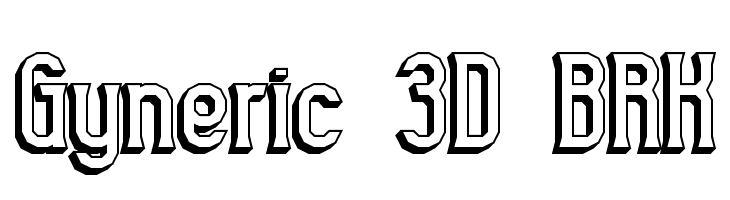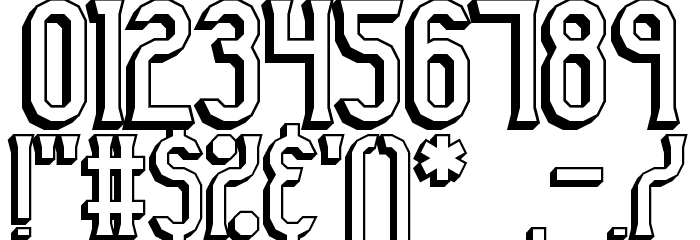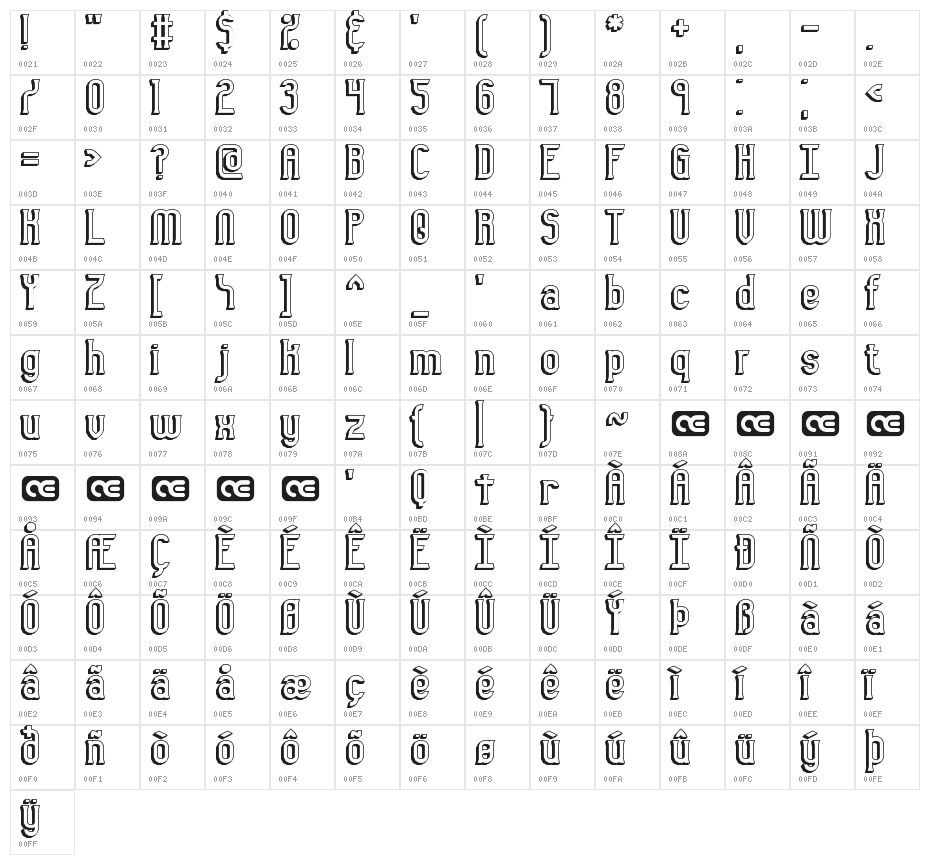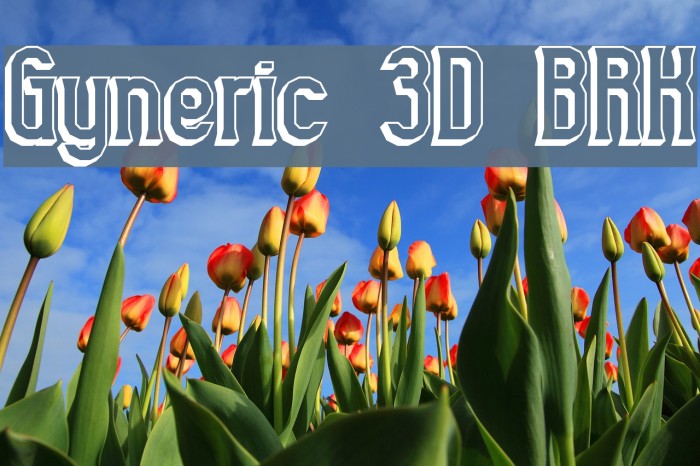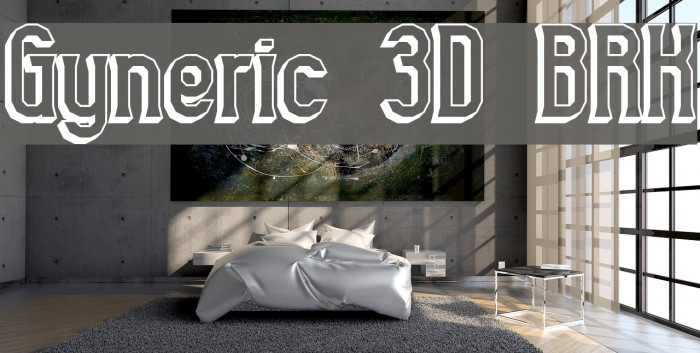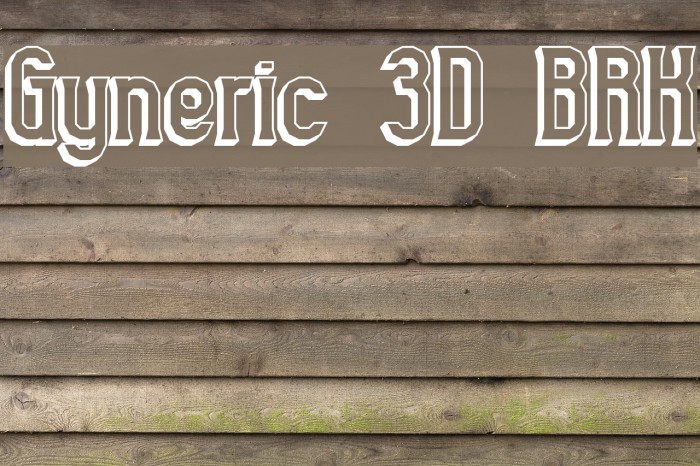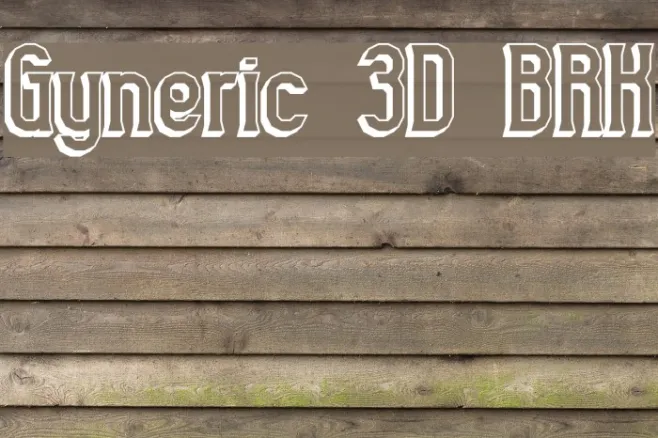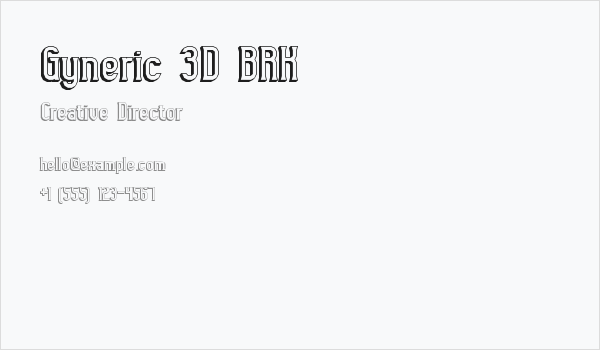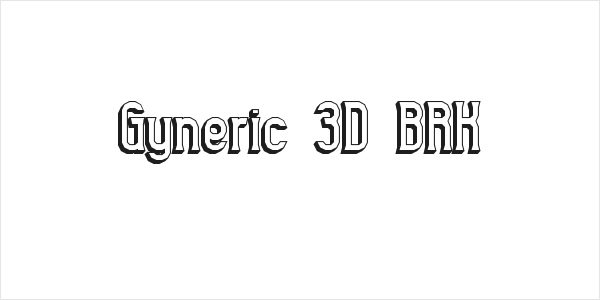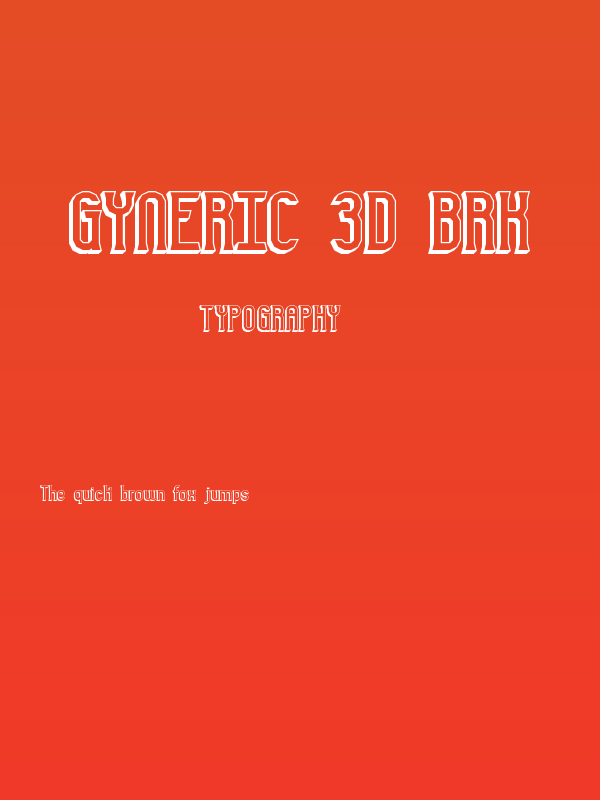
Gyneric 3D BRK Font
Gyneric 3D BRK Description
This font features a bold, three-dimensional design with a distinct shadow effect that gives it a striking appearance. The characters are outlined with a thick border, enhancing the 3D illusion and making each letter stand out prominently. The uppercase and lowercase letters maintain a consistent style, with angular edges and a geometric structure that adds a modern touch. The numerals and special characters follow the same design principles, ensuring uniformity across all glyphs. This font is ideal for creating eye-catching headlines or logos that require a strong visual impact.